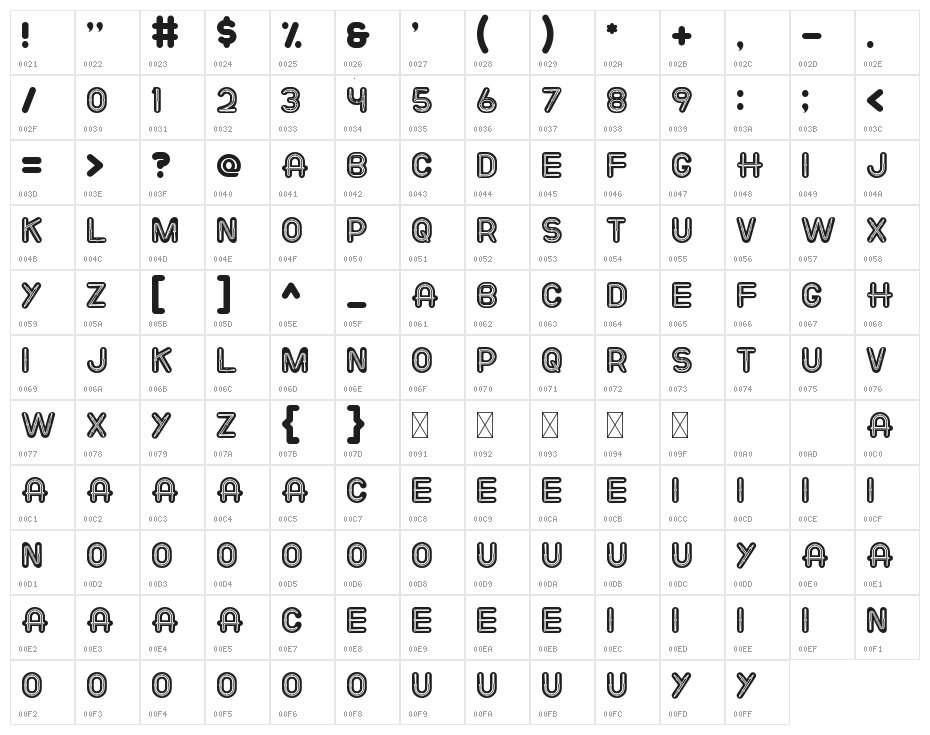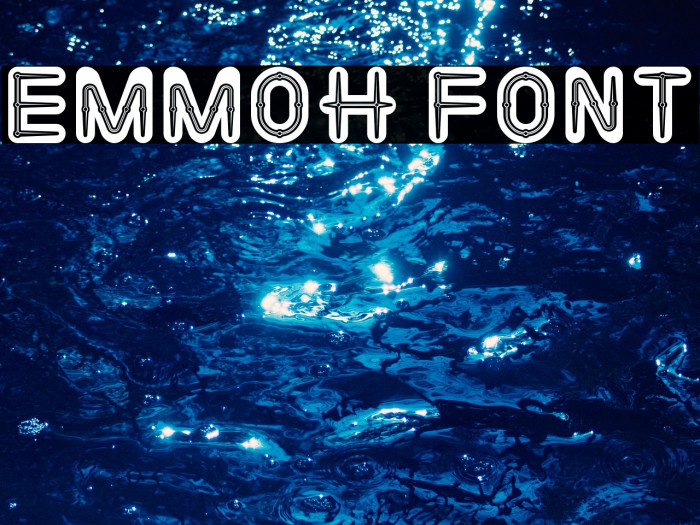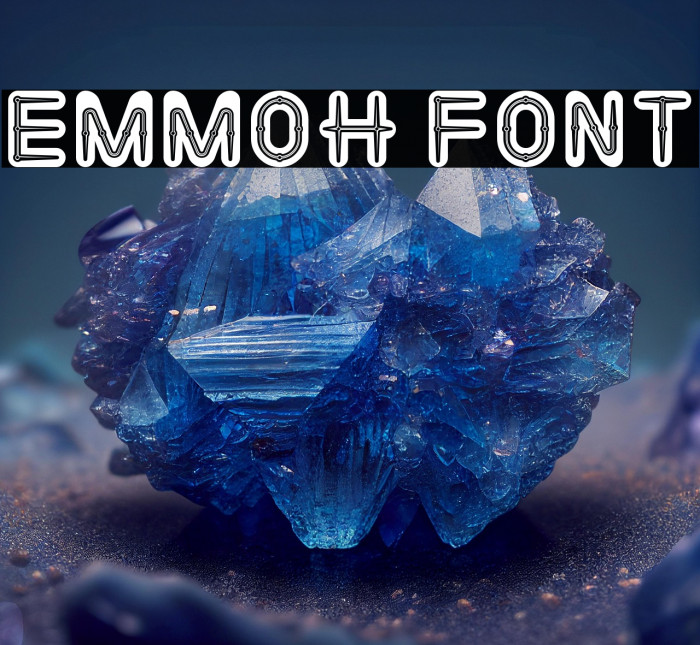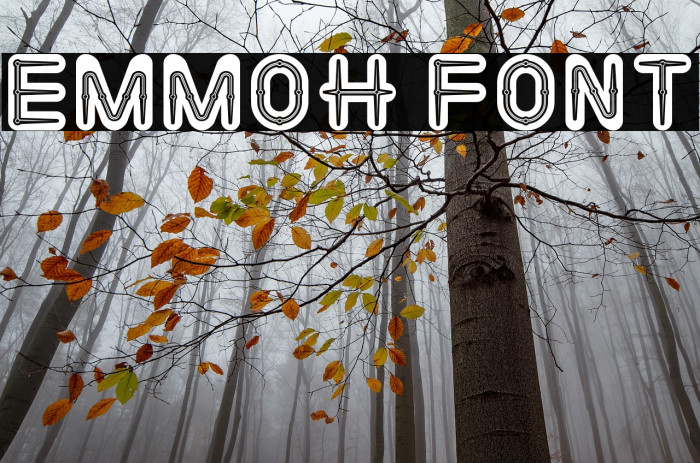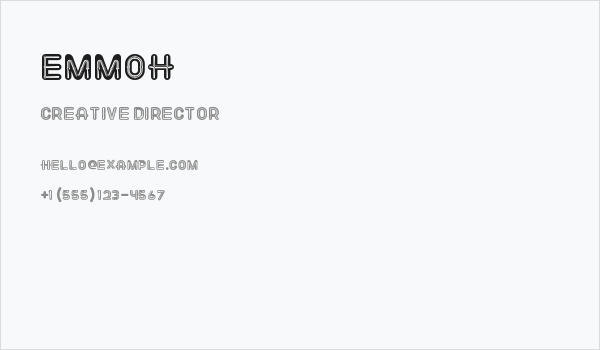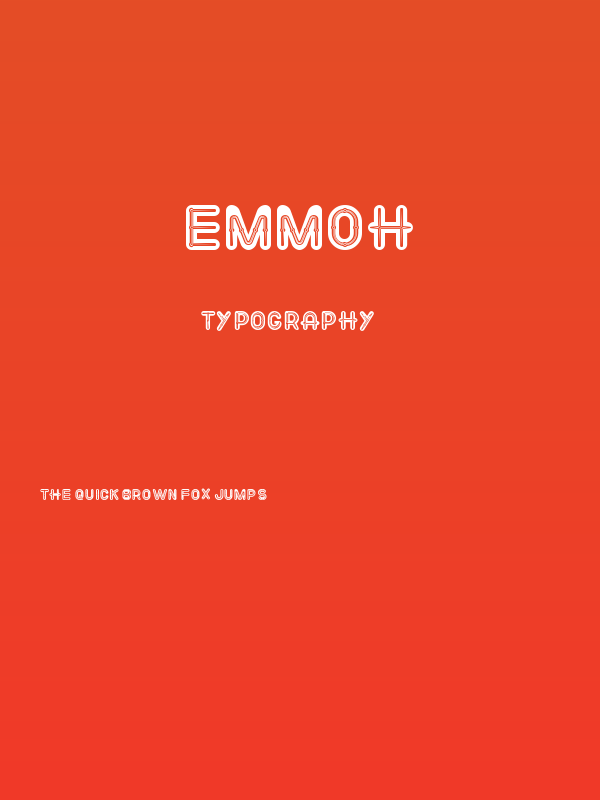
EMMOH Font
EMMOH Description
This font features a bold, decorative style with a unique double-outline effect that gives it a three-dimensional appearance. The characters are uppercase and numerals, each with a consistent width and a playful, modern aesthetic. The inner lines are thinner, creating a high contrast with the thicker outer lines. This font is ideal for eye-catching designs, offering a dynamic and engaging visual appeal. The spacing between characters is normal, allowing for clear readability while maintaining its distinctive style. The overall look is both contemporary and artistic, making it suitable for a variety of creative projects.
| Proposed Projects | Ideal for posters, logos, headlines, and any design requiring a standout, artistic font. |